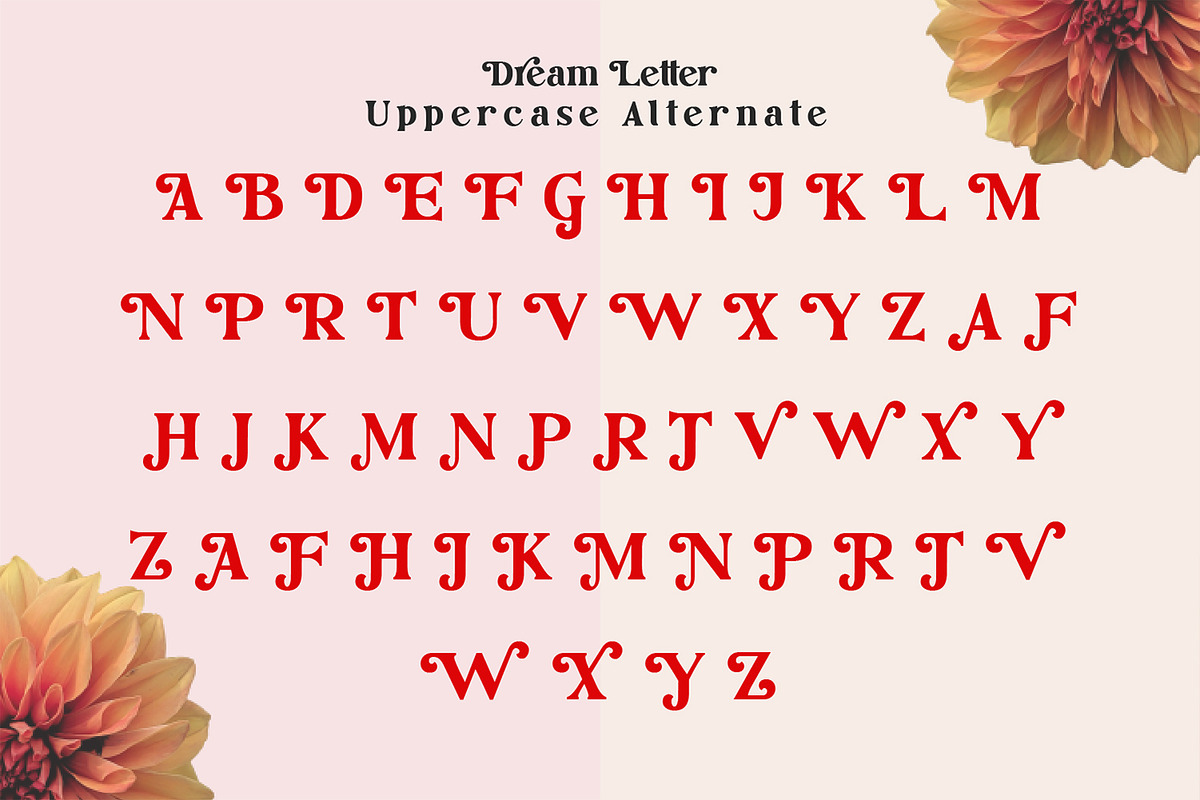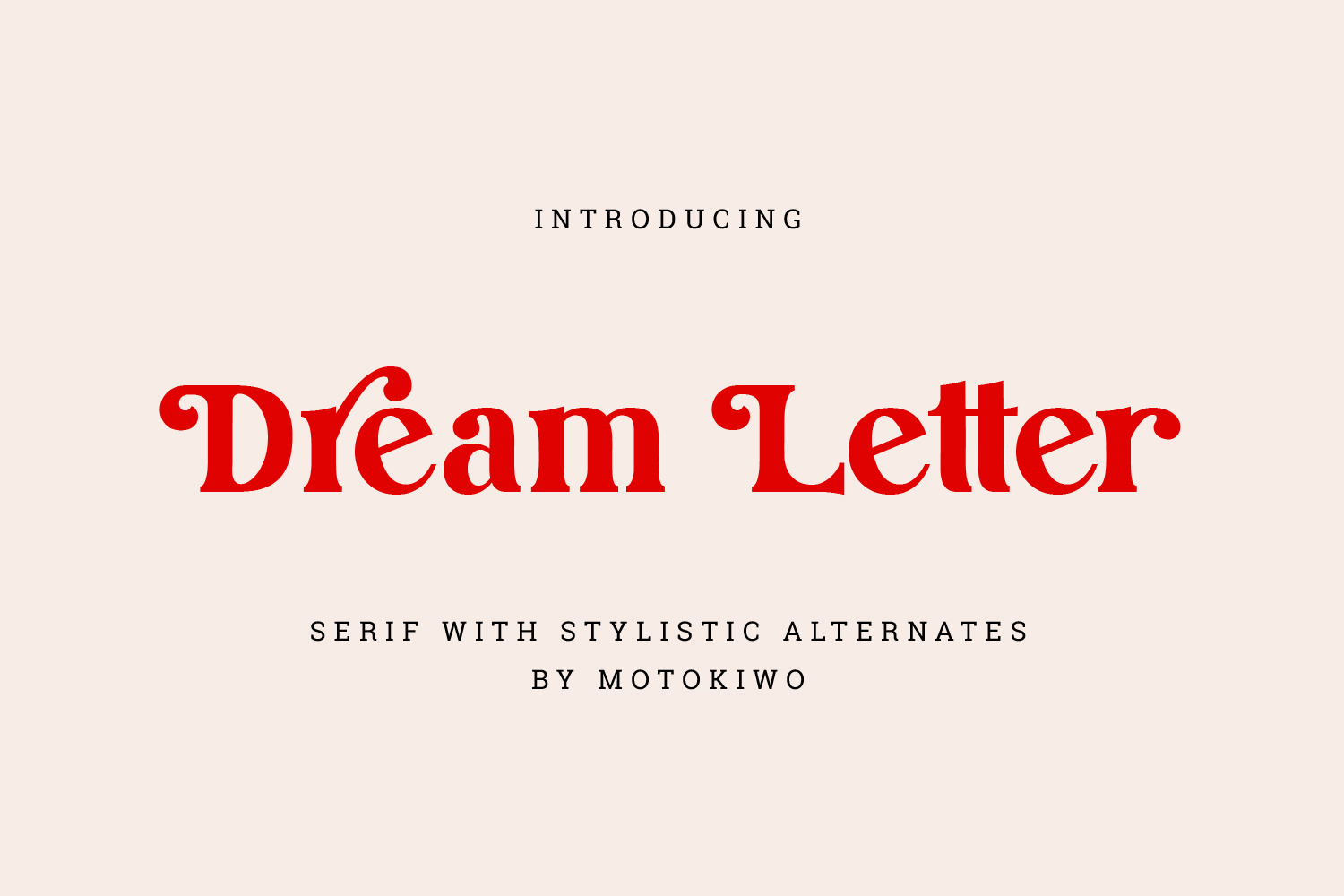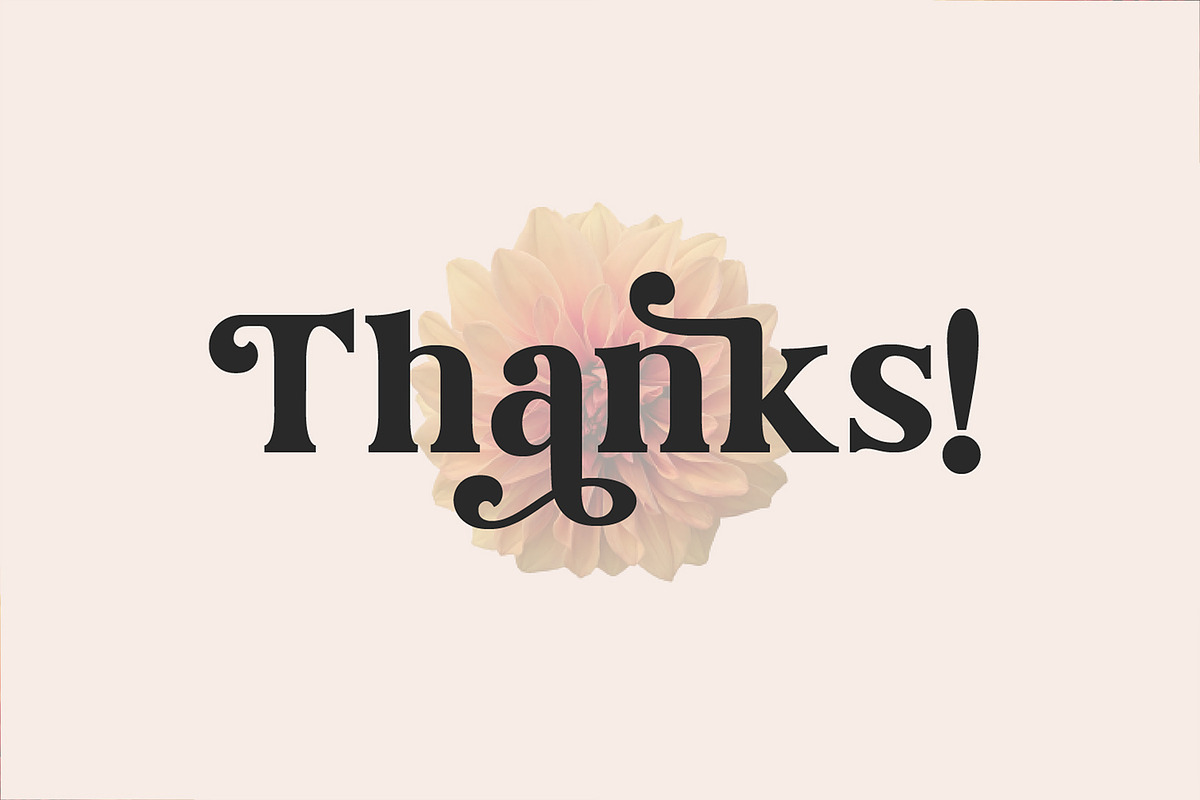
Dream Letter, Serif Font
Dream Letter, serif font with stylish alternates that will stands over your project. This will be great for logo, headline, poster, branding, and more. Most of uppercase and lowercase have alternate that you can use for bring the stylish feel into your words.